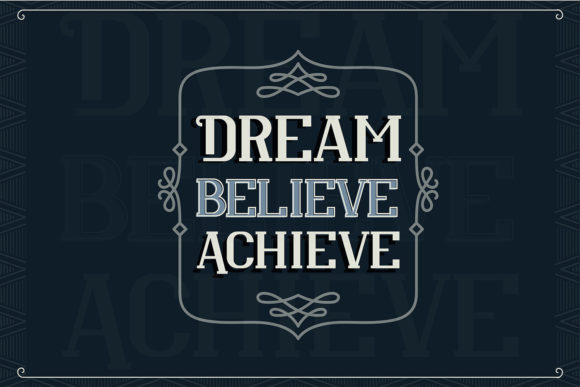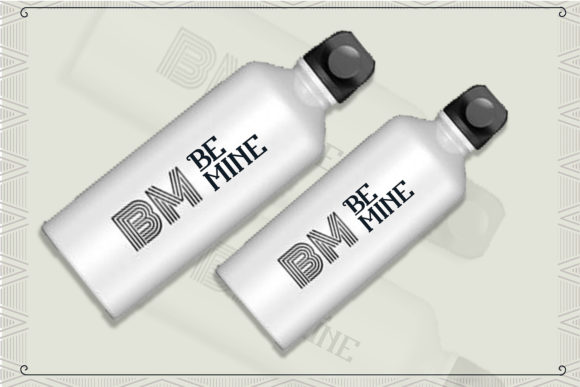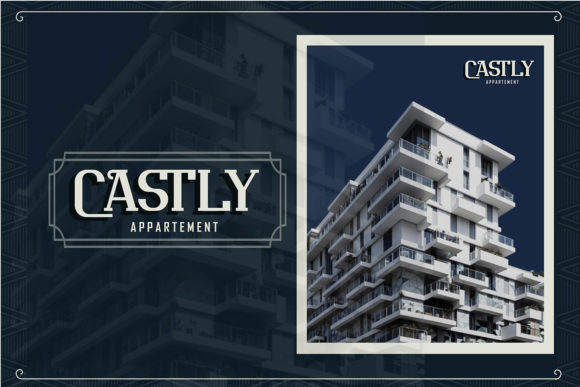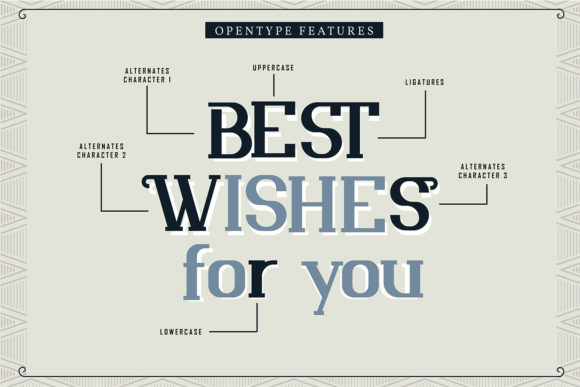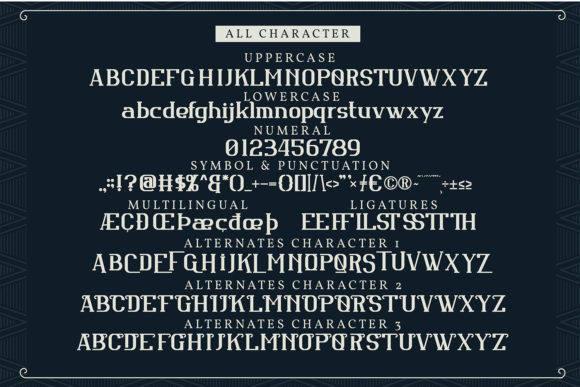
The Perfect Blend of Nostalgia and Sophistication
There’s nothing quite like the feeling of stumbling upon an old, dusty book in a thrift store, its pages filled with beautifully crafted typography that seems to transport you to another era. It’s moments like these that remind us of the power of typefaces to evoke emotions and set the tone for our designs. And, for designers looking to add a touch of classic sophistication to their work, the Benwick Castle Font is sure to be a game-changer.
Benwick Castle Font is a striking serif font that exudes confidence and dynamism, making it the perfect choice for designers who want to add a sense of nostalgia and character to their designs. With its PUA encoding, you’ll have access to all the glyphs and swashes you need to create truly unique and eye-catching designs.
- Unique Characteristics: Includes 12 styles, 6 weights, and 6 script styles, offering a wide range of typographic options
Benwick Castle Font Review
Overall, I was quite impressed with the Benwick Castle Font. Here are some of its standout features: ✨
- Unique, elegant design: The font has a distinct, medieval feel that’s perfect for creating a sense of grandeur and sophistication.
- Wide range of styles: The font family includes several styles, from the elegant Benwick Castle Regular to the more ornate Benwick Castle Ornate.
- Good legibility: The font is clear and easy to read, even at smaller sizes.
- Not suitable for all projects: The font’s ornate style may be too much for simple, modern designs.
- Limited language support: The font may not include all the characters you need for certain languages.
- May require customization: Depending on your project, you may need to adjust the font’s size, spacing, or color to get the desired effect.
Overall, I think the Benwick Castle Font is a great choice for designers who want to add a touch of elegance and sophistication to their projects. While it may not be suitable for every project, it’s a versatile font that can add a lot of character to the right design.
Benwick Castle Font is perfect for creating elegant invitations, wedding stationery, and other formal designs.
Benwick Castle Font is perfect for creating custom logos, business cards, and other professional designs.
Benwick Castle Font is perfect for creating professional presentations, reports, and other formal documents.
Benwick Castle Font is perfect for:
- Wedding stationery
- Formal invitations
- Professional presentations
- Business cards
- Custom logos
Remember to adjust the font size and style to your liking to get the most out of Benwick Castle Font.
Alternatives to Benwick Castle Font
Carolyna Pro is a beautiful, elegant script font that is ideal for creating invitations, wedding stationery, and other luxury designs. It has a more refined and sophisticated feel compared to Benwick Castle Font, which makes it perfect for high-end projects. The font is highly customizable, allowing designers to adjust the weight, size, and spacing to suit their needs.
Comparison: While both fonts have a similar aesthetic, Carolyna Pro has a more refined and polished look, making it suitable for more formal designs.
Great Vibes is a modern calligraphy font that is perfect for creating trendy and eye-catching designs. It has a more casual and relaxed feel compared to Benwick Castle Font, making it ideal for social media graphics, blog posts, and other digital content. The font is highly versatile and can be used for a wide range of projects, from fashion and beauty to food and travel.
Comparison: While both fonts have a similar script style, Great Vibes has a more modern and edgy feel, making it suitable for trendy and creative projects.